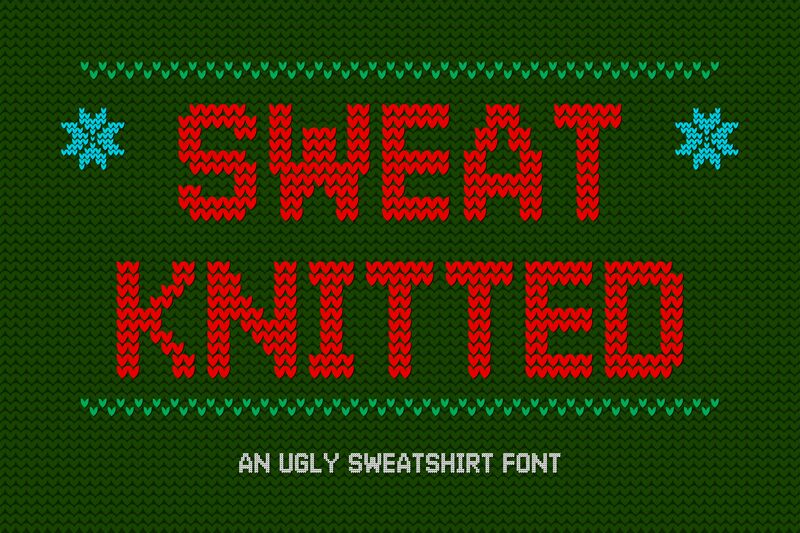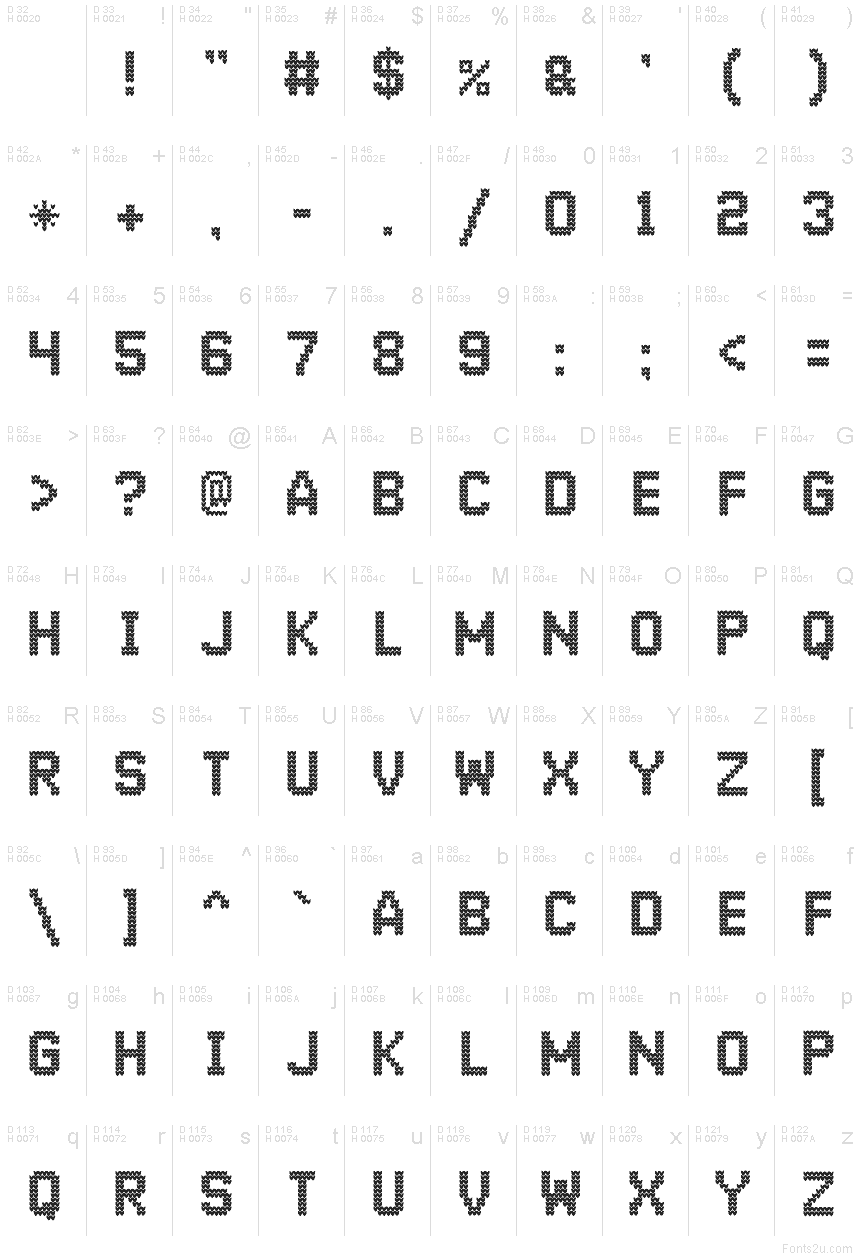
JDR Sweat Knitted font by Jefferson Del Rosario is a free holiday christmas typeface. Every letter looks like it’s been stitched from tiny X-shaped stitches, echoing the cozy texture of a classic winter sweater. The blocky forms are tightly knit, giving words a chunky, handmade feel that instantly calls to mind hot cocoa, snow days, and slightly tacky-but-loved Christmas jumpers. It reads clearly at larger sizes, so the knitted pattern feels tangible and almost touchable.
Using JDR Sweat Knitted, you can turn any layout into festive sweater art-think ugly sweater party invites, seasonal posters, greeting cards, gift tags, and social media graphics. This free font also works beautifully on product packaging, printable banners, and DIY crafts. For balance, pair it with a clean sans serif for body text and let JDR Sweat Knitted handle the loud, cheerful headlines.